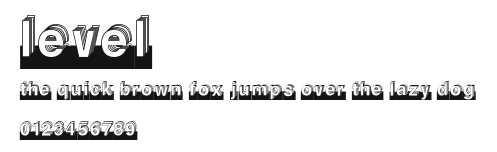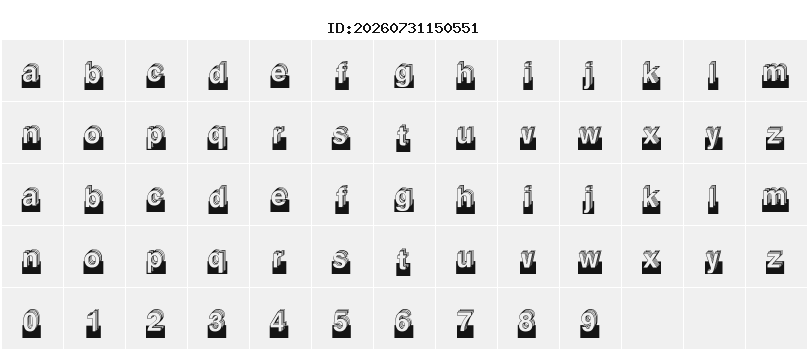
Level Preview
• Font Name: Level
About Level.ttf
Level.ttf is a modern, elegant sans-serif font designed for ultimate readability and visual harmony. Perfect for branding, headlines, web design, and print materials.